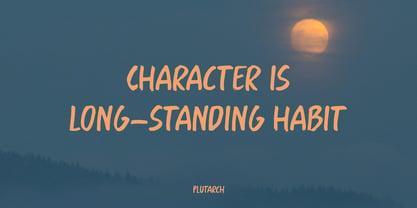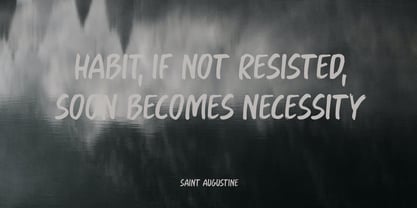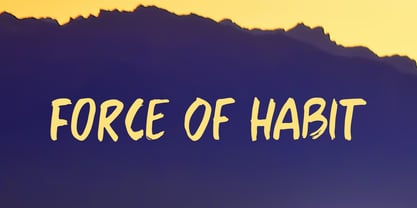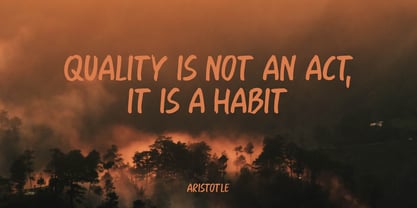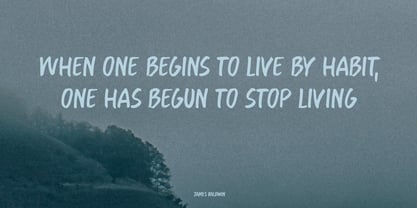
Force Of Habit Pro
by Hanoded
The Force Of Habit Pro Font Family was designed by David Kerkhoff and published by Hanoded. Force Of Habit Pro contains 2 styles and family package options. More about this family
I am not really a creature of habit, but when I start working on a new font, I make myself a cup of coffee first. I guess you can call that a habit, so I decided to name this font Force Of Habit.
Force Of Habit is a nice brush font - made with a cheap pencil that I borrowed from the kids’ colouring box and my trusted (and seemingly ever flowing) Chinese ink.
Force Of Habit comes with extensive language support, some alternates and - quite possibly - a faint smell of freshly roasted coffee.
About Hanoded
Hanoded is run by Dutchman David Kerkhoff. His fonts are a mishmash of styles, as he just creates whatever pops into his head. You will find a lot of brush fonts in his collection, as his favourite tools are brushes and Chinese ink, with cartoon style fonts and script fonts complementing his repertoire. Aside from making fonts, David occasionally guides tours in far-flung places, renovates his '30's house and tries reasoning with his wife and (teenage) kids. Not an easy task!